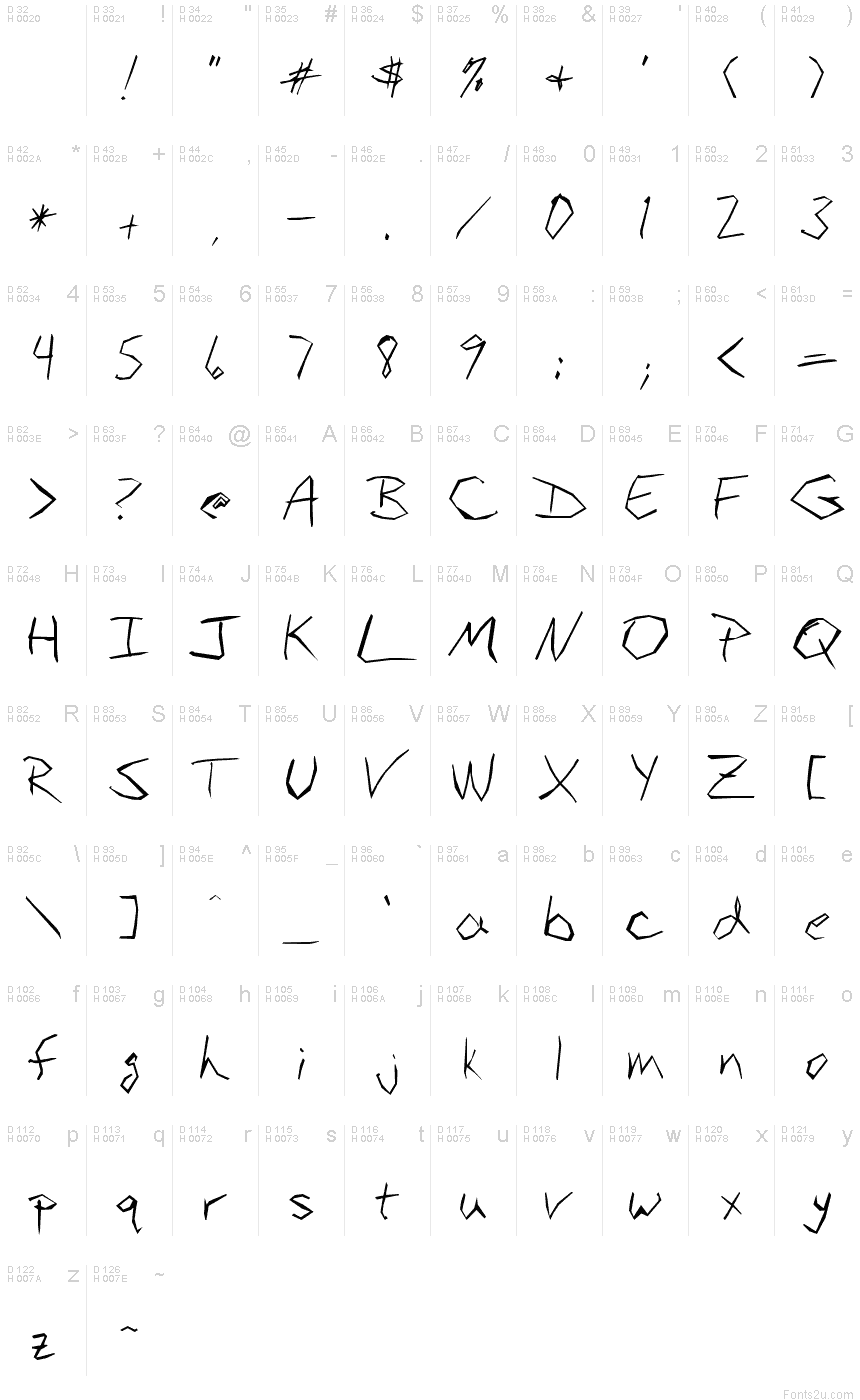
BudAngular
Bud Angular font by John D. 'Bud' Banks is a free handwritten typeface with a wiry, nervous energy. Its jagged strokes and uneven angles feel like they were scratched out with a dried marker, giving every word a raw, urgent edge. The letters connect loosely, so text looks spontaneous and human, but with a distinct, almost graffiti-like structure that stands out instantly.
Using Bud Angular, you can push attitude to the foreground—this free font shines on punk gig posters, horror zines, skateboard graphics, edgy logos, game titles, and rebellious social graphics. The tight spacing keeps short phrases punchy, while the irregular rhythm adds tension and motion. For readability, pair Bud Angular with a clean geometric sans for body text and let it shout in larger sizes for headlines and branding.